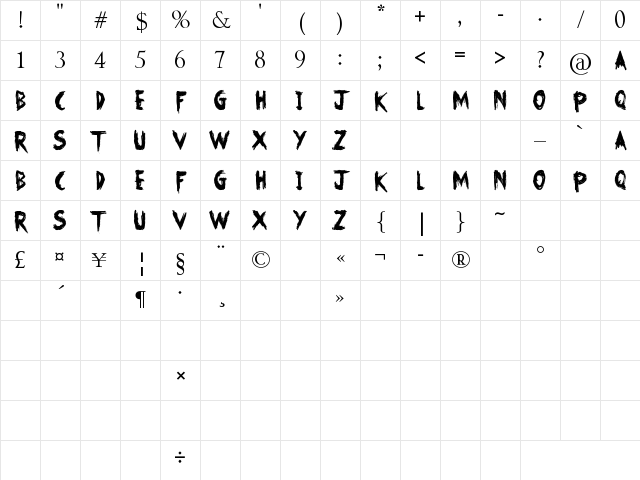
Complete No Fear Regular glyph index. Displaying only characters natively supported by No Fear Regular font.
No Fear is a composed and adaptable typeface that performs quietly and consistently across a wide range of design contexts.
Pro Tip: Use No Fear in both headline and body roles to test its range before committing to a single application.